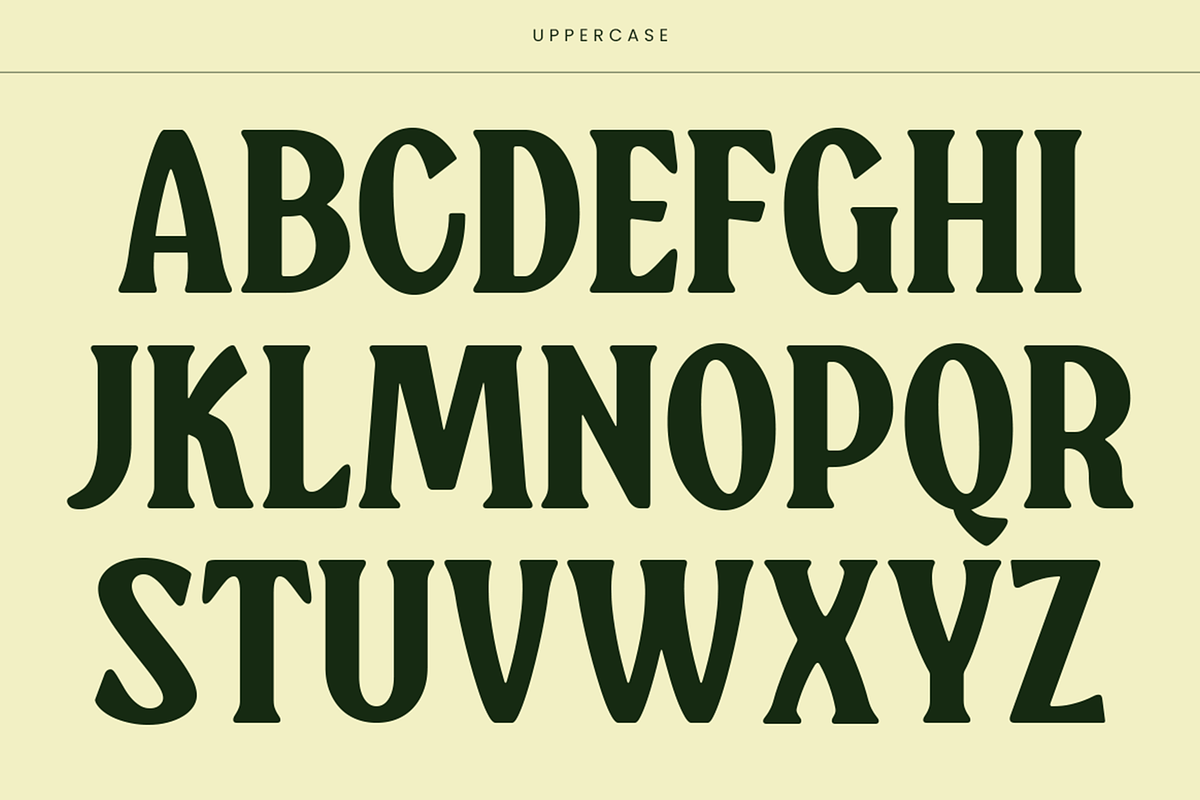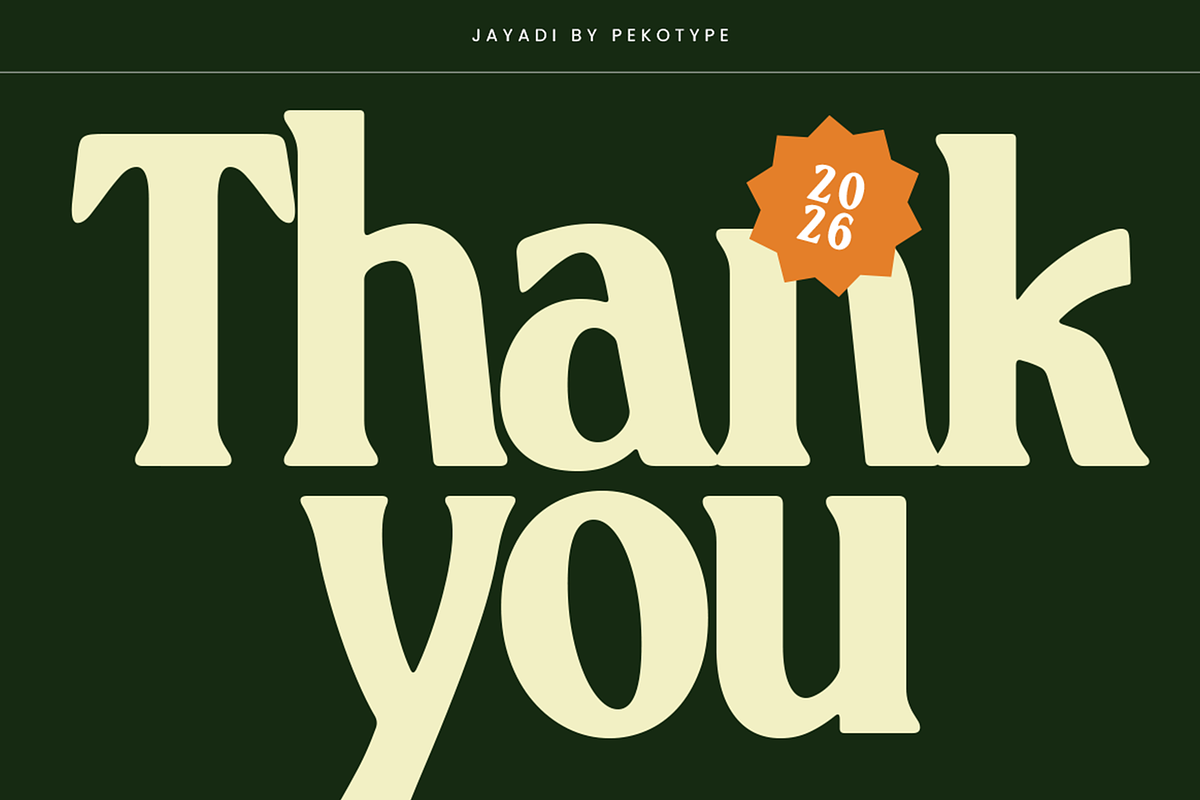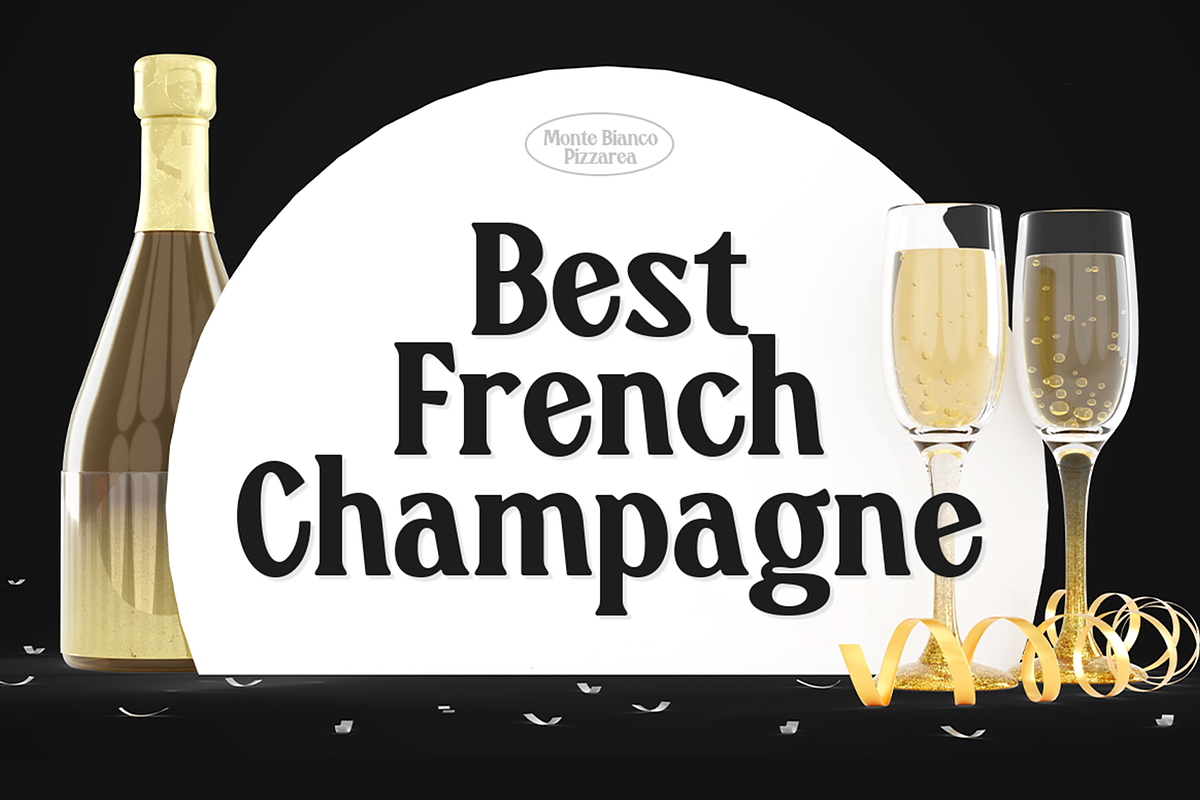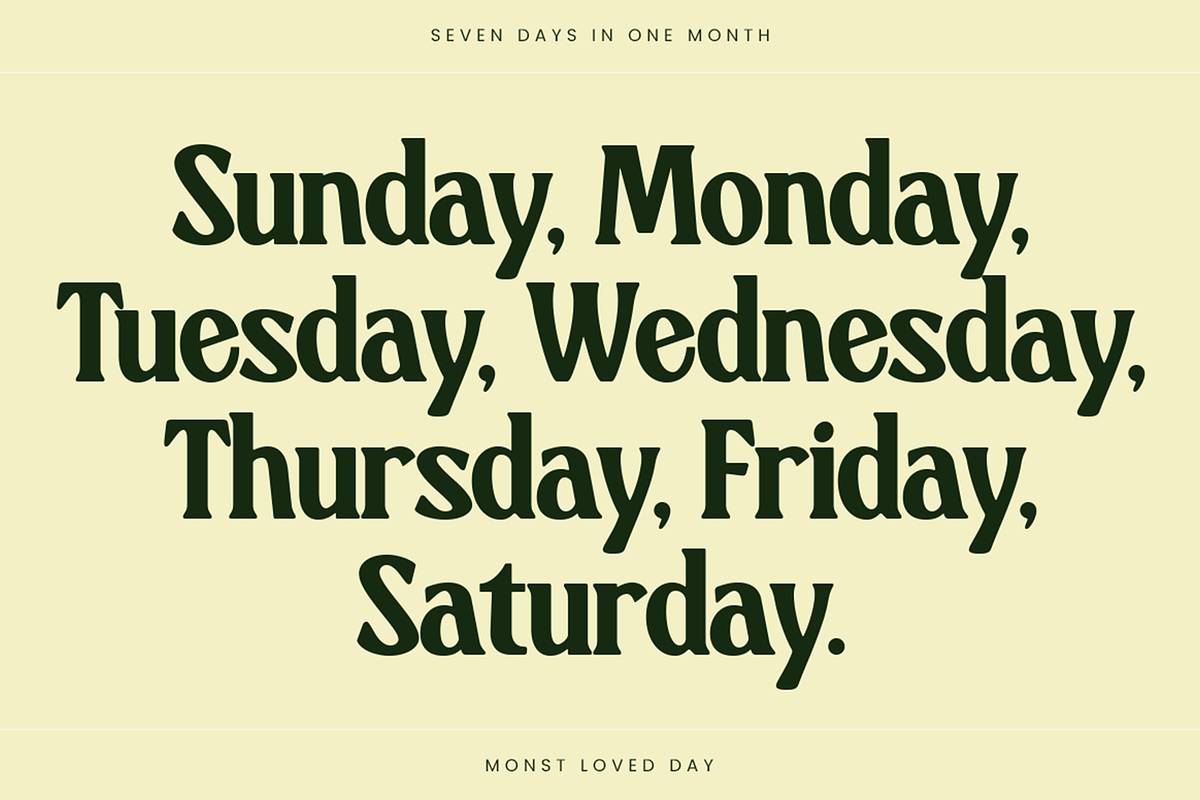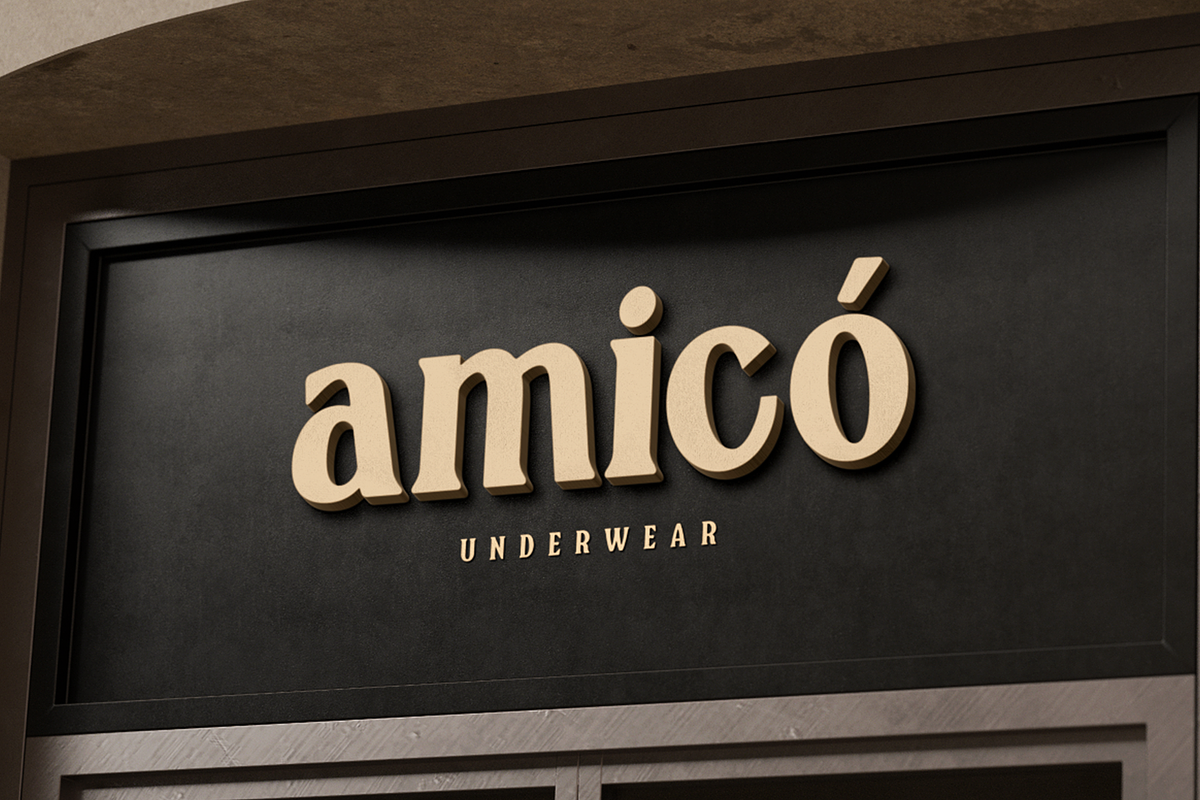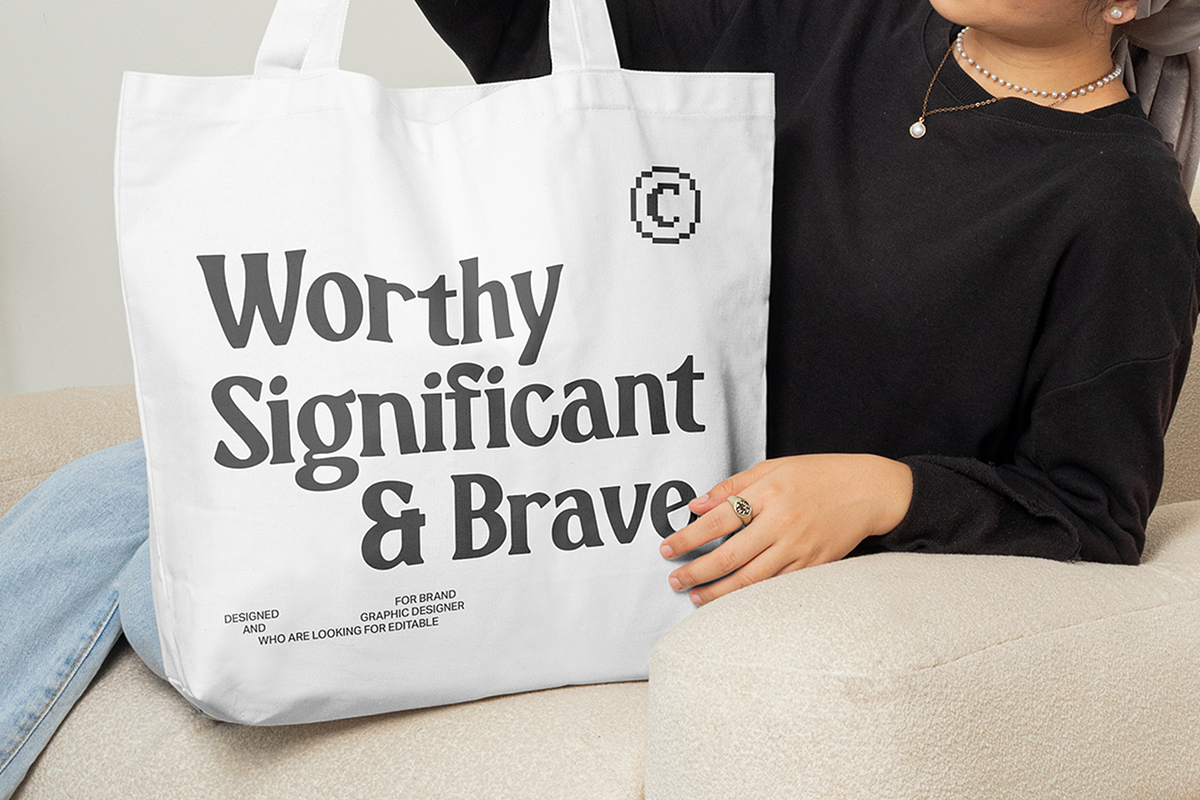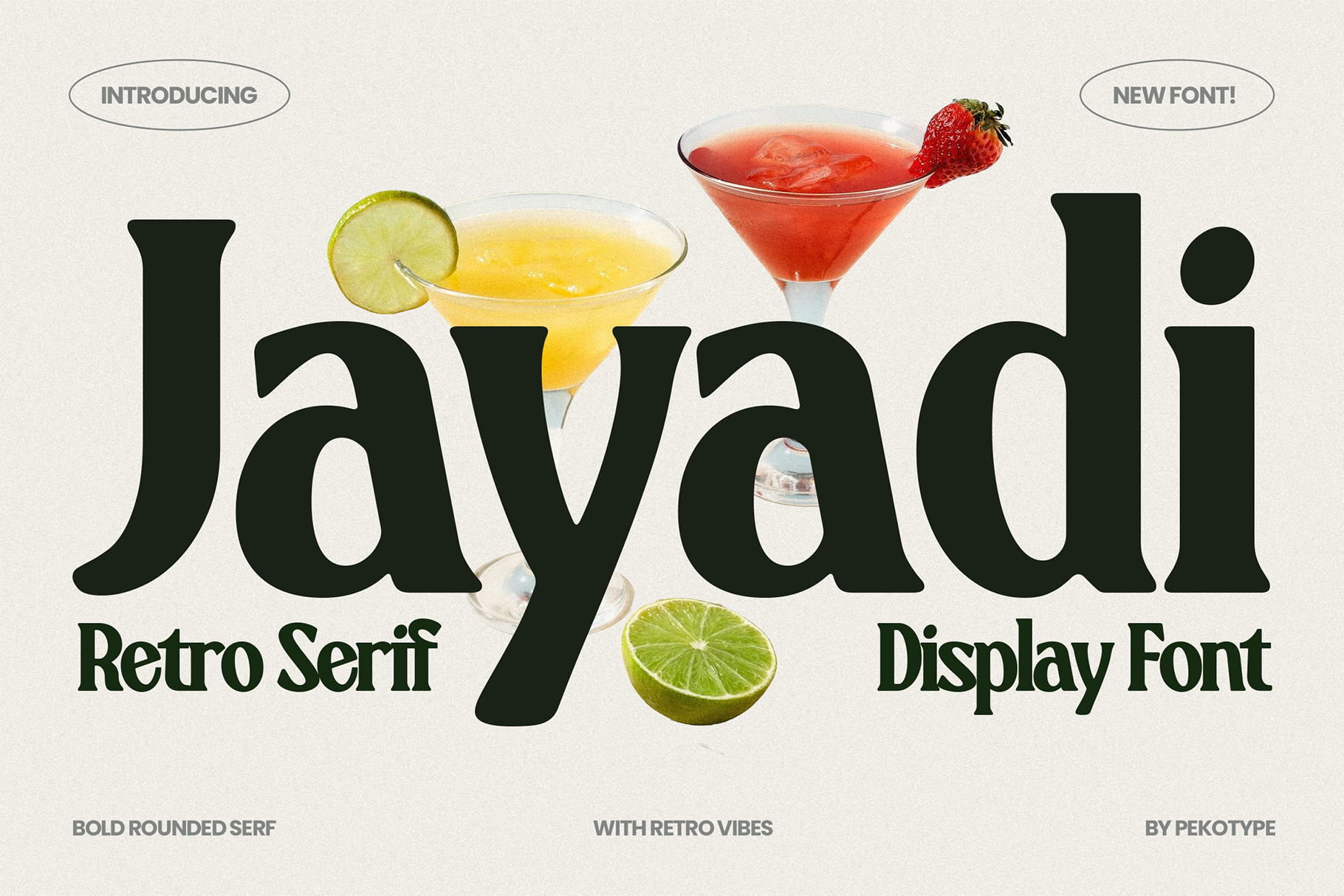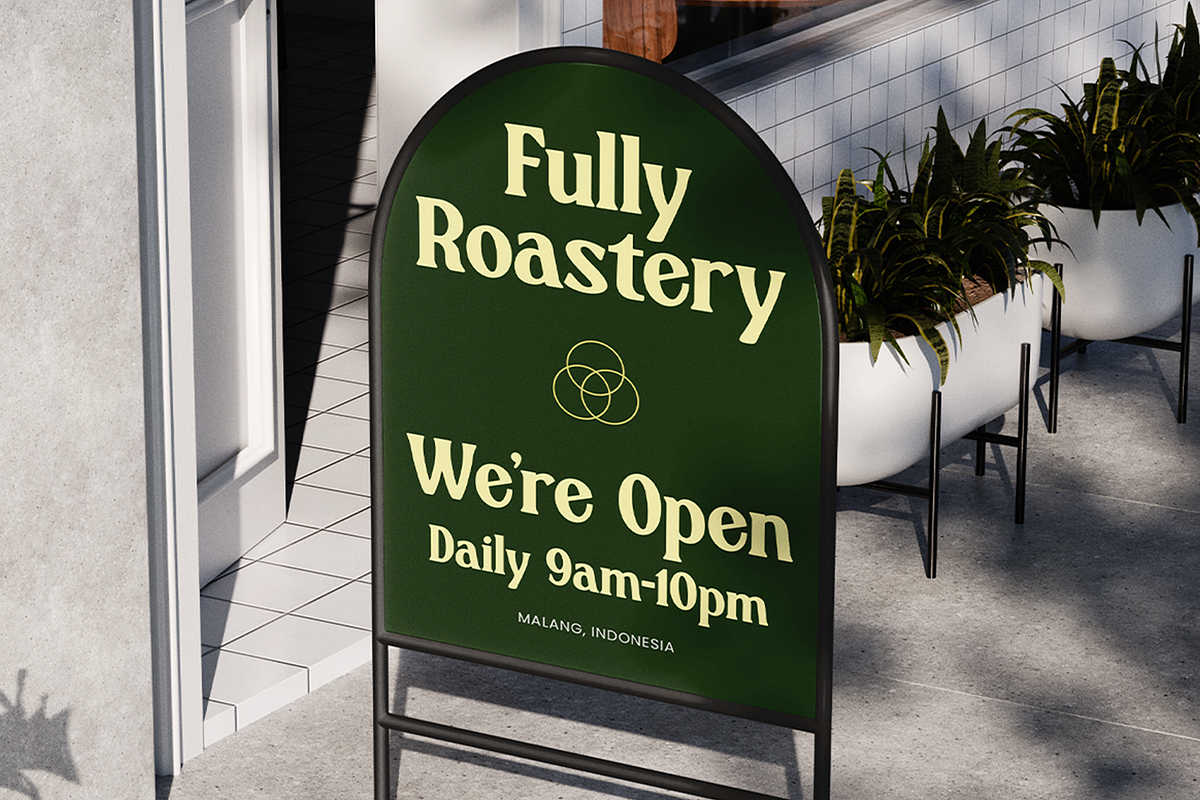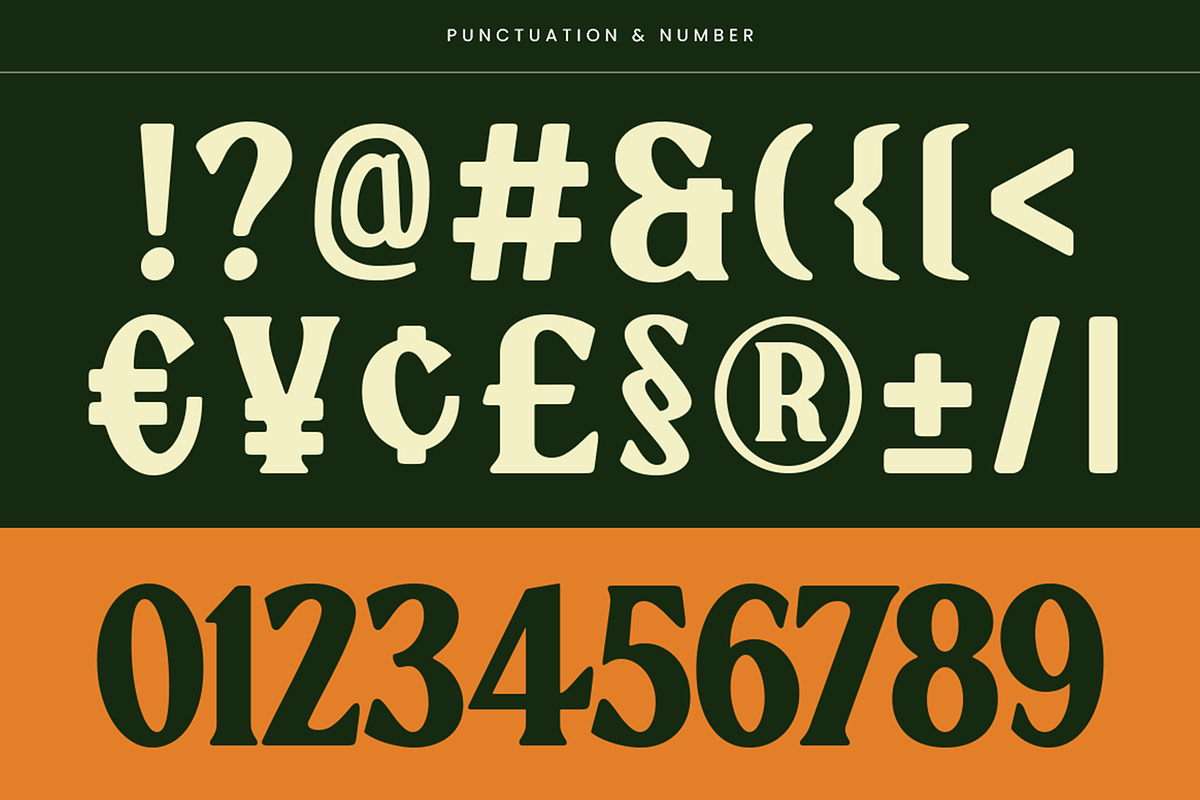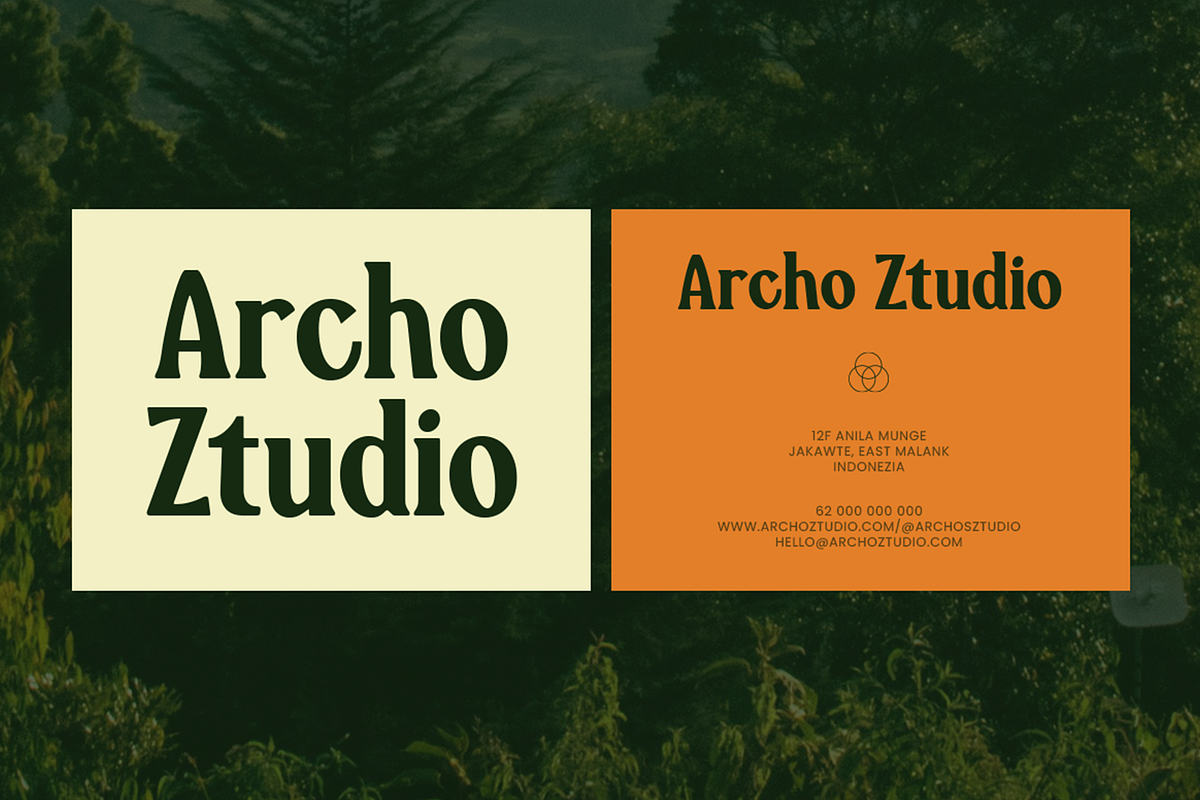
Jayadi - Branding Rounded Serif Font
JAYADI is a retro serif display font with a warm vintage personality and a modern, clean finish. The letterforms feel classic, elegant, and slightly nostalgic, inspired by old signage and editorial typography, but refined for today’s branding needs. JAYADI has soft curves, confident serifs, and a stylish rhythm that makes headlines look premium without feeling stiff. It’s a font that feels friendly, tasteful, and timeless — perfect when you want text to look classy but still approachable.
JAYADI works beautifully for branding, café and restaurant menus, packaging, posters, logos, editorial headlines, boutique labels, signage, and social media visuals. It’s especially strong for lifestyle brands, coffee shops, food packaging, fashion labels, and product design. If you want a serif display font that feels retro, elegant, and easy to use across branding projects, JAYADI gives your visuals a polished vintage charm.